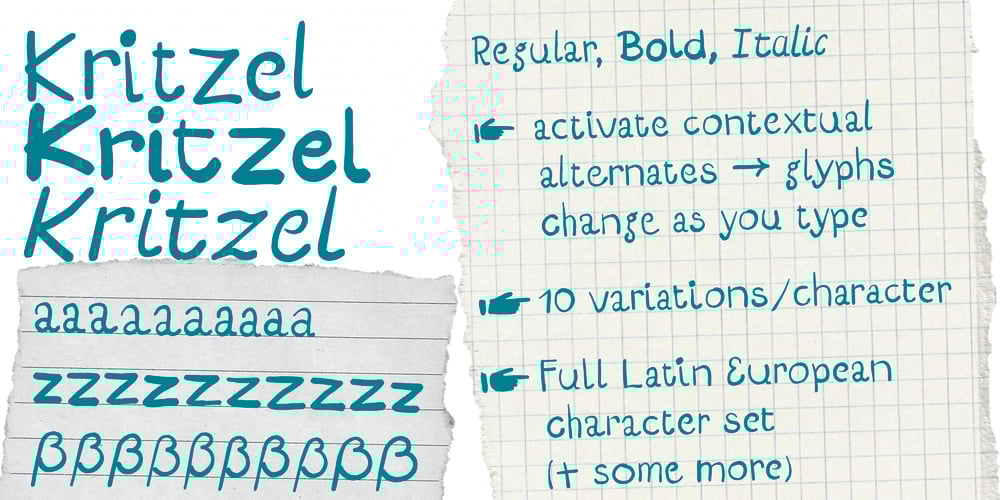
Kritzel Font Family was designed by Werner Eschmann and published by Fontroll. Kritzel contains 3 styles and family package options. Hi, here’s Kritzel (German for doodle). A font with 10 variations per character which change automatically once you activted Contextual Alternates (calt) in your app. In three fonts: Roman, Itaiic and Bold. This and some basic kerning makes appear Kritzel an almost natural handwriting. So you basically get 10 fonts per weight for the price of one with a total amount of more than 3700 glyphs PER FONT (and no, we don’t include totally useless accents)!If you want to use Kritzel in Latin written European languages, go for it. Even more we added skulls, arrows, pointers, smileys and frownies.Kritzel is perfect for comics, “handwritten” invitations, packaging, posters, leads, captions…